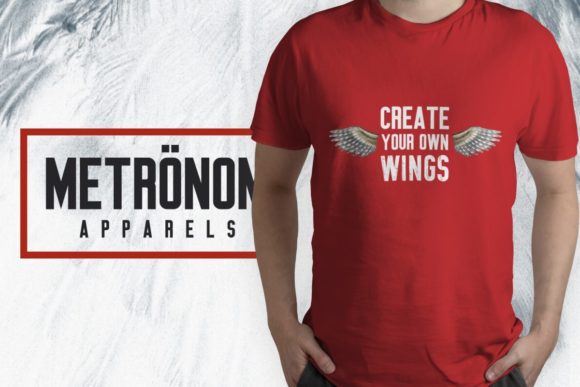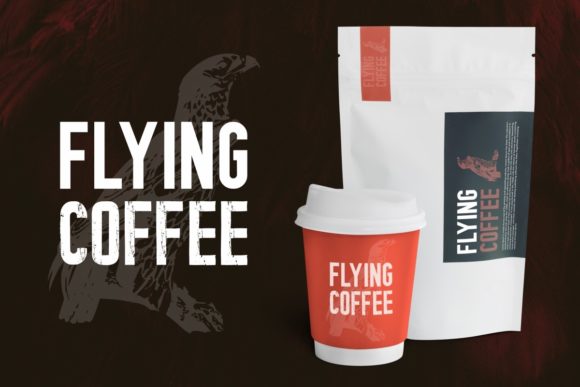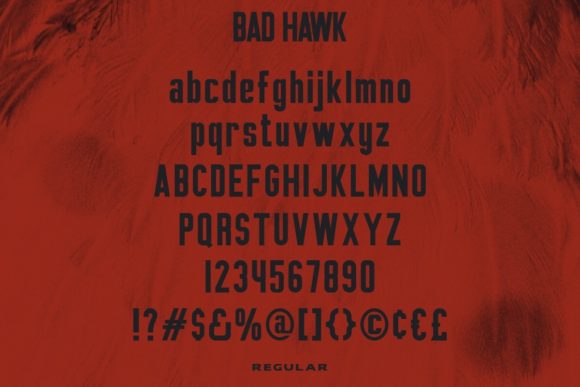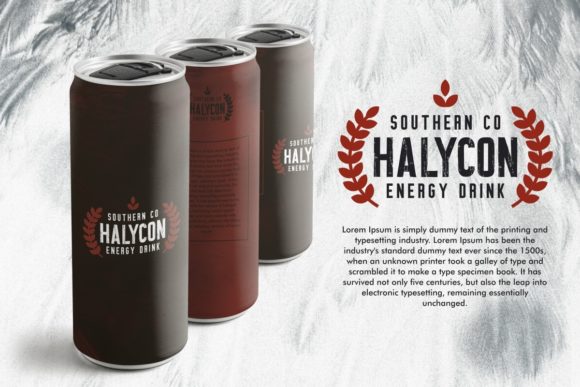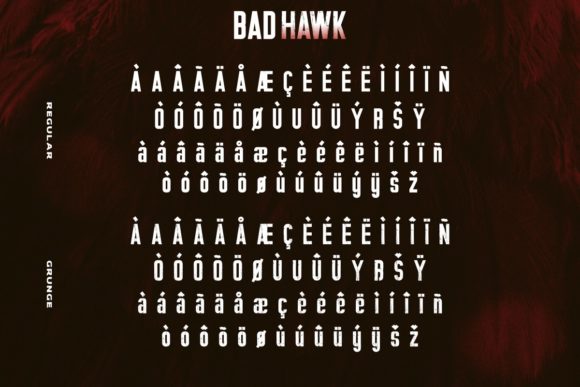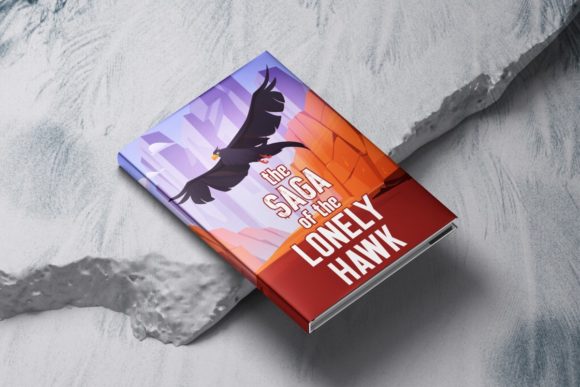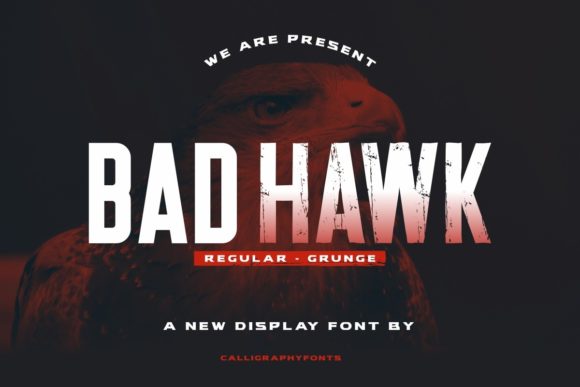
Introducing Bad Hawk Font: The Ultimate Display Font for Bold Designs
Are you tired of using the same old fonts for your designs? Look no further than Bad Hawk Font, a cool, bold, and assertive display font that’s perfect for making a statement. With its unique and edgy style, Bad Hawk Font is ideal for a wide range of design projects, from posters and labels to magazine covers and more.
The Characteristics of Bad Hawk Font
Bad Hawk Font is a sans-serif font that’s designed to grab attention. Its bold and assertive style makes it perfect for designs that require a cool touch. The font has a modern and edgy feel to it, with clean lines and a rugged texture that gives it a distinctive look. Whether you’re designing a poster, a label, or a magazine cover, Bad Hawk Font is sure to make your design stand out from the crowd.
What Makes Bad Hawk Font So Versatile?
One of the things that sets Bad Hawk Font apart from other display fonts is its versatility. This font can be used for a wide range of design projects, from bold and edgy posters to sleek and modern labels. It’s also perfect for magazine covers, flyers, and other marketing materials that require a cool and attention-grabbing font. Whether you’re a designer, a crafty DIY enthusiast, or a marketing professional, Bad Hawk Font is a great addition to your font library.
Design Ideas with Bad Hawk Font
So, what can you create with Bad Hawk Font? The possibilities are endless! Here are a few ideas to get you started:
• Posters: Use Bad Hawk Font to create bold and eye-catching posters for concerts, events, or marketing campaigns.
• Labels: Add a cool touch to your product labels or packaging with Bad Hawk Font.
• Magazine Covers: Use Bad Hawk Font to create striking magazine covers that grab attention.
• Flyers: Create bold and attention-grabbing flyers for events, sales, or promotions.
• Social Media Graphics: Use Bad Hawk Font to create bold and eye-catching social media graphics that stand out from the crowd.
Why Designers and Crafters Love Bad Hawk Font
Designers and crafters love Bad Hawk Font for its unique and edgy style. This font is perfect for those who want to add a bold and assertive touch to their designs. With Bad Hawk Font, you can create designs that stand out from the crowd and make a lasting impression. Whether you’re a professional designer or a crafty DIY enthusiast, Bad Hawk Font is a great addition to your font library.
Tips for Using Bad Hawk Font
Here are a few tips for using Bad Hawk Font:
• Use it sparingly: Bad Hawk Font is a bold font, so use it sparingly to avoid overwhelming your design.
• Pair it with a neutral font: Pair Bad Hawk Font with a neutral font to create contrast and add visual interest to your design.
• Experiment with colors: Bad Hawk Font looks great in bold and bright colors, so don’t be afraid to experiment with different colors.
In conclusion, Bad Hawk Font is a cool, bold, and assertive display font that’s perfect for making a statement. With its unique and edgy style, Bad Hawk Font is ideal for a wide range of design projects, from posters and labels to magazine covers and more. Whether you’re a designer, a crafty DIY enthusiast, or a marketing professional, Bad Hawk Font is a great addition to your font library.